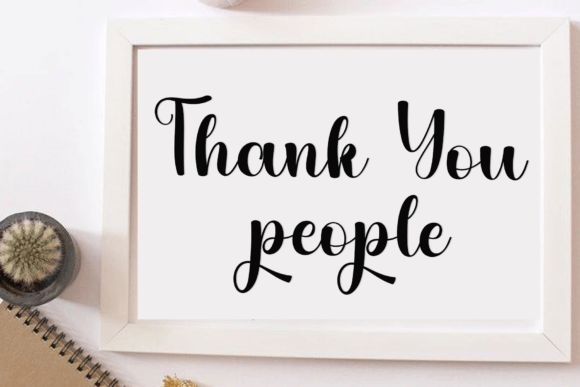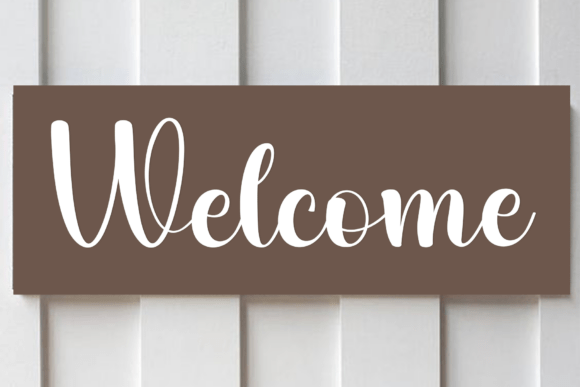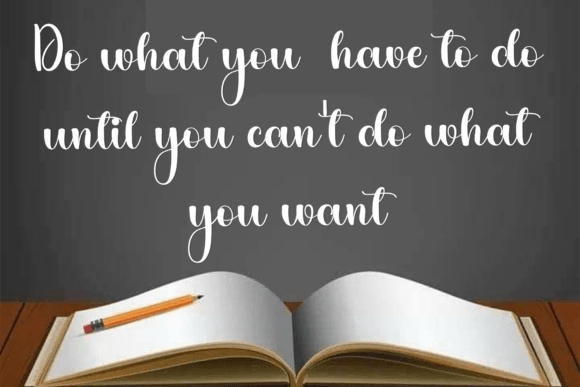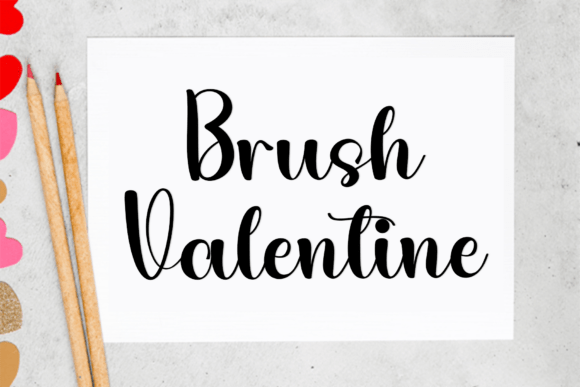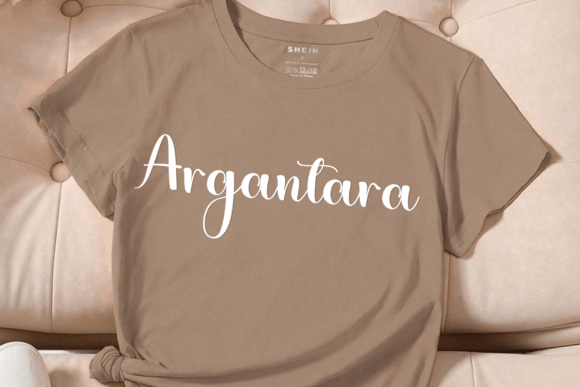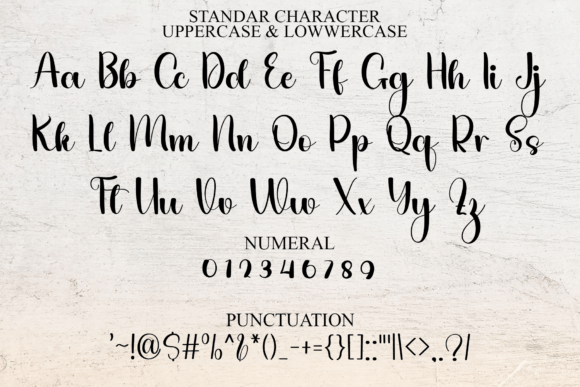
Unlock the Magic of the Holiday Season with the Calligraphy Handmade Font
As a designer, there’s something special about creating a design that captures the essence of the holiday season. Maybe it’s the twinkling lights, the sound of carolers, or the smell of freshly baked cookies wafting from the oven. Whatever it is, you know that it’s the perfect time to bring out the festive and merry vibes in your designs.
That’s where the Calligraphy Handmade Font comes in – a beautiful and whimsical typeface that adds a touch of enchantment to your designs. With its decorative elements and nostalgic flair, this font is perfect for greeting cards, gift tags, and holiday-themed projects. Whether you’re a seasoned designer or just starting out, the Calligraphy Handmade Font is a valuable addition to your typography toolkit.
Calligraphy Handmade Font Key Features
- Font Style: A beautiful, elegant, and artistic calligraphy font, perfect for creating unique and eye-catching designs.
- Unique Characteristics: Features intricate, hand-drawn letterforms, ornate flourishes, and subtle texture, giving it a genuine handmade feel.
- Character Set: Includes a wide range of characters, including uppercase and lowercase letters, numbers, punctuation marks, and special characters, making it suitable for various design projects.
Calligraphy Handmade Font Review
I recently had the chance to work with the Calligraphy Handmade Font, and I must say, it’s a unique and charming addition to any design project. Here’s my honest review:
- Beautiful, hand-crafted feel: The font has a very organic, handwritten quality that adds a touch of elegance to any text.
- Great for creative projects: The font’s playful, cursive style makes it perfect for designing wedding invitations, menus, and other creative projects where you want to add a personal touch.
- High-quality character set: The font has a wide range of characters, including punctuation marks and numbers, making it a great choice for a variety of projects.
- Limited legibility: While the font is beautiful, it can be difficult to read at small font sizes, especially for longer blocks of text.
- Not ideal for body text: The font’s cursive style makes it better suited for headlines and titles, rather than body text where readability is a top priority.
- No bold or italic weights: The font only comes in a regular weight, which can limit its versatility in certain design projects.
Overall, I think the Calligraphy Handmade Font is a great choice for designers who want to add a touch of personality and whimsy to their projects. Just be mindful of its limitations and use it wisely.
Getting the Most Out of the Font
For best results, use the Calligraphy Handmade Font in combination with a clean and simple design.
Experiment with different font sizes and styles to create a visually appealing contrast.
Use the font in bold and italic styles to add emphasis to your text.
The Calligraphy Handmade Font is ideal for:
Formal event invitations and announcements
High-end branding and marketing materials
Artistic and creative projects